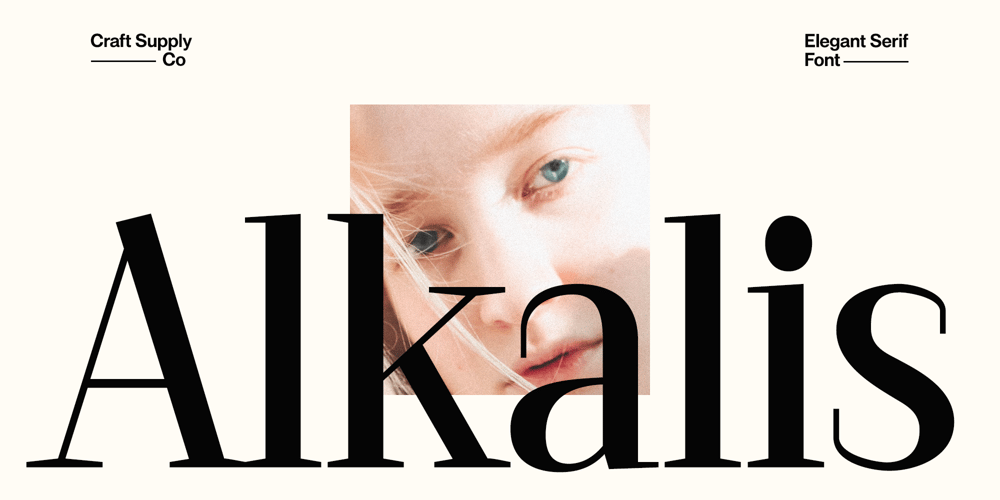
Alkalis Font Family was designed by Trio Nazzar Saputra, Wahyu Hadi Yuana and published by Craft Supply Co. Alkalis contains 8 styles and family package options. Alkalis: Modernity Meets Elegance Meet Alkalis – Modern Elegant Serif, where modern meets timeless. This serif offers the perfect contrast for versatility. It’s crafted for both text and display needs. Alkalis brings a touch of elegance to any project.Balanced Contrast With Alkalis, experience the ideal balance in font design. The contrast is just right, not too sharp, not too soft. This balance makes it perfect for an array of uses. Plus, it’s designed to be as fitting for body text as it is for headers.